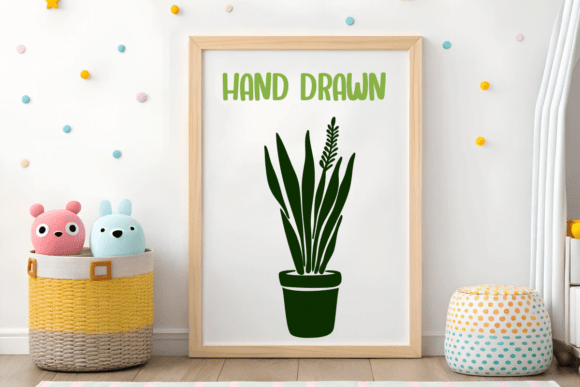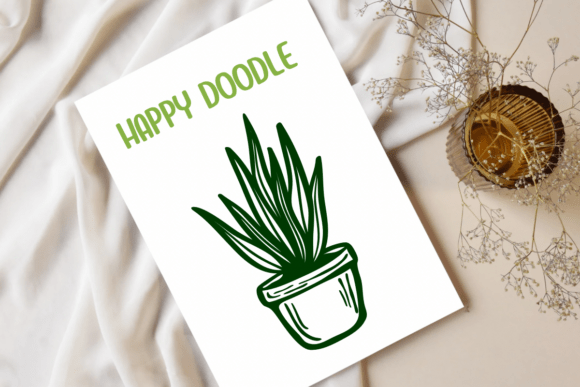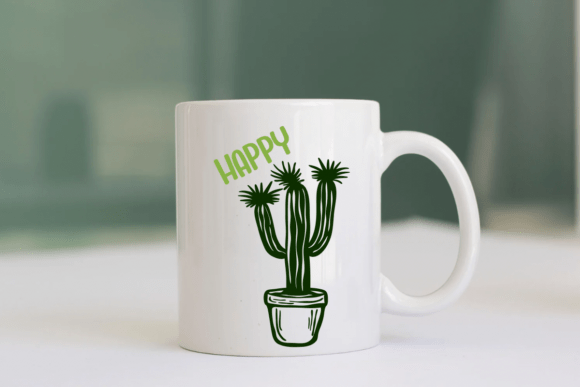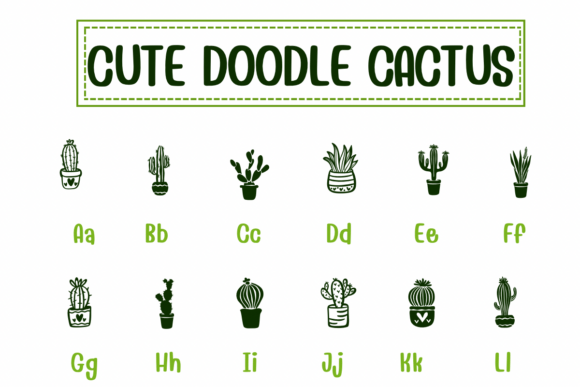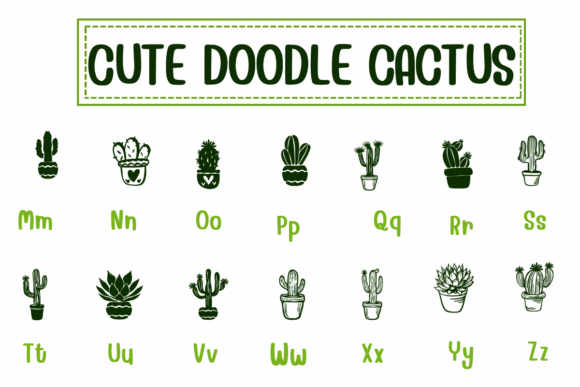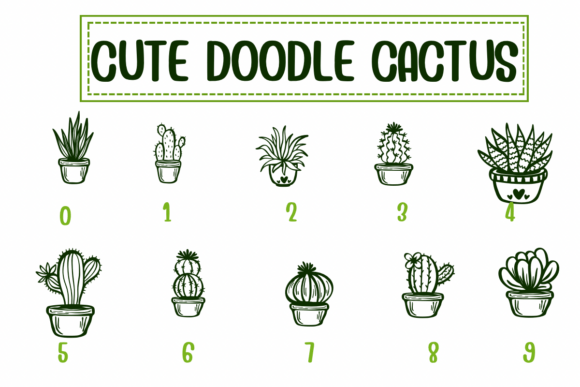
Cute Doodle Cactus Font: Add a Touch of Whimsy to Your Designs
Are you looking for a unique and playful way to add some personality to your craft projects, invitations, scrapbooking, and stickers? Look no further than the Cute Doodle Cactus font! This charming dingbat font is packed with hand-drawn cactus illustrations that are sure to bring a smile to your face and a touch of whimsy to your designs.
What is Cute Doodle Cactus Font?
Cute Doodle Cactus is a dingbat font that features a collection of hand-drawn cactus illustrations. Each glyph in the font is a mini artwork, carefully crafted to add a fun and organic feel to your designs. The font is perfect for designers, crafters, and DIY enthusiasts who want to add a personal touch to their projects without needing to use separate image files.
Uses for Cute Doodle Cactus Font
The Cute Doodle Cactus font is incredibly versatile and can be used for a wide range of projects, including:
- Craft projects: Add a touch of personality to your craft projects, such as handmade cards, gift tags, and journal pages.
- Invitations: Make your invitations stand out with cute and playful cactus illustrations.
- Scrapbooking: Add a fun and organic feel to your scrapbook pages with the Cute Doodle Cactus font.
- Stickers: Create custom stickers with the Cute Doodle Cactus font and add them to your projects for a personal touch.
- DIY projects: Use the font to add a touch of whimsy to your DIY projects, such as signs, labels, and gift wrapping.
Benefits of Using Cute Doodle Cactus Font
There are many benefits to using the Cute Doodle Cactus font in your designs. Here are just a few:
- Customizable: You can customize the font to fit your needs, using it in a variety of sizes and colors.
- No separate image files needed: Because the font is made up of glyphs, you don’t need to use separate image files, making it easy to use and manage.
- Unique and playful: The Cute Doodle Cactus font adds a unique and playful touch to your designs, setting them apart from more traditional fonts.
Tips for Using Cute Doodle Cactus Font
Here are a few tips for getting the most out of the Cute Doodle Cactus font:
- Experiment with different sizes: Try using the font in different sizes to add visual interest to your designs.
- Mix and match glyphs: Combine different glyphs to create unique and interesting designs.
- Use with other fonts: Pair the Cute Doodle Cactus font with other fonts to create a unique and eye-catching design.
- Have fun: Most importantly, have fun with the font! Experiment and play around with different designs and ideas.
The Cute Doodle Cactus font is a charming and playful dingbat font that is perfect for designers, crafters, and DIY enthusiasts. With its hand-drawn cactus illustrations and easy-to-use design, it’s a great way to add a touch of whimsy to your projects. Whether you’re working on craft projects, invitations, scrapbooking, or stickers, the Cute Doodle Cactus font is sure to bring a smile to your face and a touch of personality to your designs.